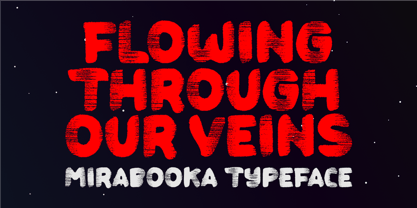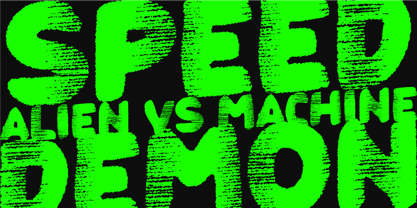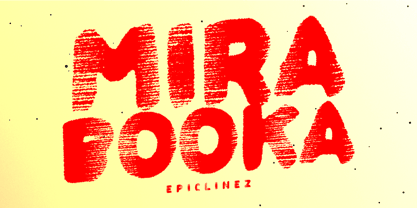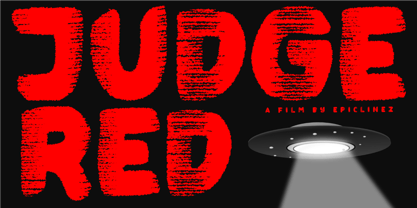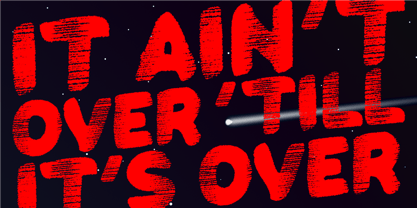
Mirabooka
by Epiclinez
The Mirabooka Font Family was designed by Aldy Sidik and published by Epiclinez. Mirabooka contains 1 styles. More about this family
Mirabooka is a bold, high-impact display font built for designs that demand raw power and futuristic chaos. Its heavy letterforms feature aggressive distortions, rough cuts, and glitch-like textures that create a striking alien-tech and sci-fi horror aesthetic. The broken horizontal strokes and eroded edges give the type a sense of speed and digital corruption, as if the letters are tearing through a malfunctioning machine system. Designed to stand out, Mirabooka delivers a loud, cinematic presence perfect for titles, posters, and branding that need an edgy, otherworldly feel. The font blends elements of cyberpunk, sci-fi, horror, and experimental typography, making it ideal for gaming graphics, futuristic movie titles, album covers, streetwear designs, and bold digital artwork. Whether you're creating a dystopian game logo, alien invasion poster, or glitch-inspired branding, Mirabooka brings a powerful visual punch that captures attention instantly.
Designers: Aldy Sidik
Foundry: Epiclinez